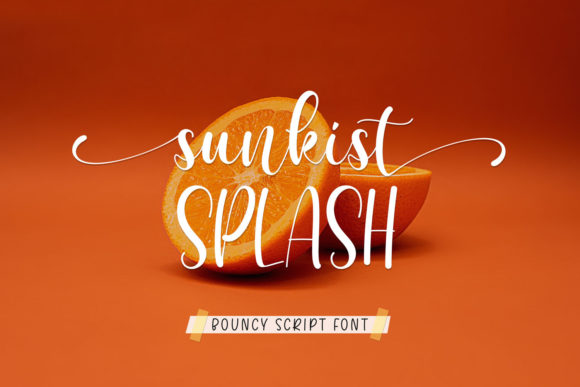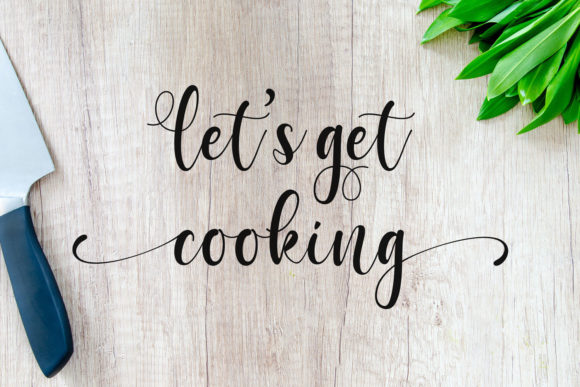
About Sunkist Splash Font
Sunkist Splash is an elegant script font with a contemporary atmosphere and impeccable form. Balanced and varied, this font was designed to enhance the beauty of your projects.